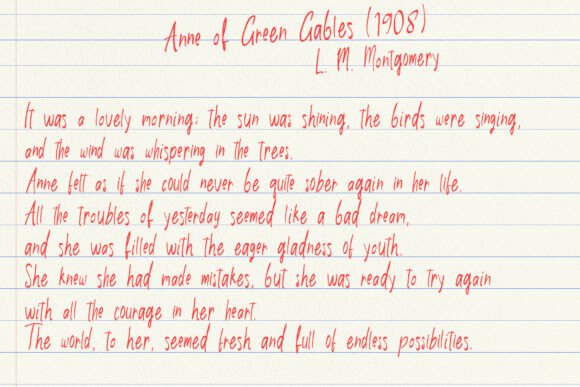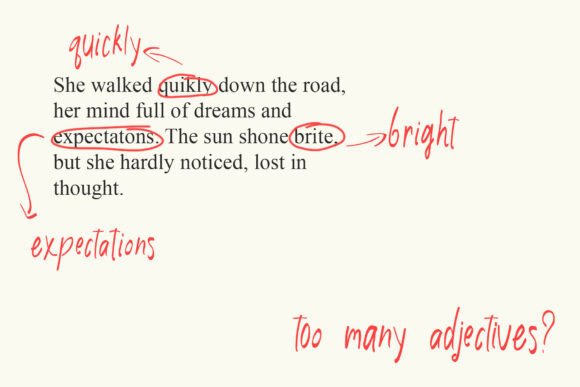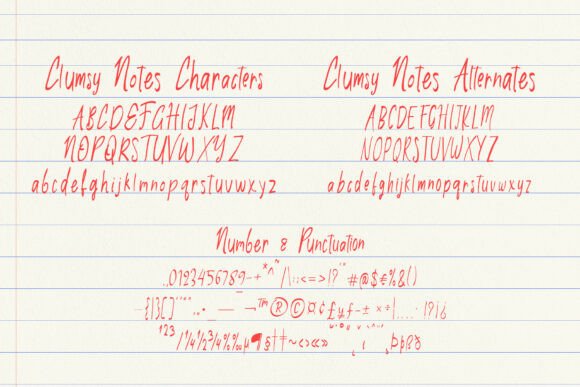
Introducing Clumsy Notes Font: The Playful Handwritten Font for Creative Projects
Are you tired of using the same old fonts for your designs? Do you want to add a personal touch to your planners, journals, and school projects? Look no further than Clumsy Notes, a playful handwritten font that captures the charm of imperfect doodles and everyday notes.
The Charm of Imperfection
Clumsy Notes is a font that celebrates the beauty of imperfection. With its quirky strokes and natural flow, it feels like a real notebook scribble. The font’s irregularities and inconsistencies make it feel like it was written by hand, adding a touch of warmth and personality to your designs.
Clumsy Notes is perfect for a variety of creative projects, including:
- Planners and journals: Add a personal touch to your bullet journal or planner with Clumsy Notes.
- School projects: Make your school projects stand out with a font that’s fun and playful.
- Digital stickers: Create cute and quirky digital stickers with Clumsy Notes.
- Cute captions: Add a touch of personality to your social media posts with Clumsy Notes.
- Casual branding: Use Clumsy Notes to create a brand identity that’s friendly and approachable.
What Makes Clumsy Notes Special?
So, what makes Clumsy Notes special? Here are just a few features that set it apart:
- Handwritten feel: Clumsy Notes has a natural, handwritten feel that’s perfect for designs that need a personal touch.
- Quirky strokes: The font’s quirky strokes and irregularities make it feel like a real notebook scribble.
- Playful vibe: Clumsy Notes has a playful vibe that’s perfect for designs that need to be fun and lighthearted.
- Easy to read: Despite its irregularities, Clumsy Notes is easy to read, making it perfect for designs that need to be both fun and functional.
How to Use Clumsy Notes in Your Designs
Using Clumsy Notes in your designs is easy. Here are a few tips to get you started:
- Pair it with other fonts: Pair Clumsy Notes with other fonts to create a unique and interesting contrast.
- Use it for headings: Use Clumsy Notes for headings and titles to add a touch of personality to your designs.
- Have fun: Most importantly, have fun with Clumsy Notes! The font is designed to be playful and fun, so don’t be afraid to experiment and try new things.
Clumsy Notes is a playful handwritten font that’s perfect for designers and crafters who want to add a personal touch to their designs. With its quirky strokes and natural flow, it feels like a real notebook scribble. Whether you’re making digital stickers, cute captions, or casual branding, Clumsy Notes adds personality and warmth to your work. So why not give it a try and see what kind of creative projects you can come up with?
With Clumsy Notes, the possibilities are endless. So go ahead, get creative, and have fun with this playful handwritten font!